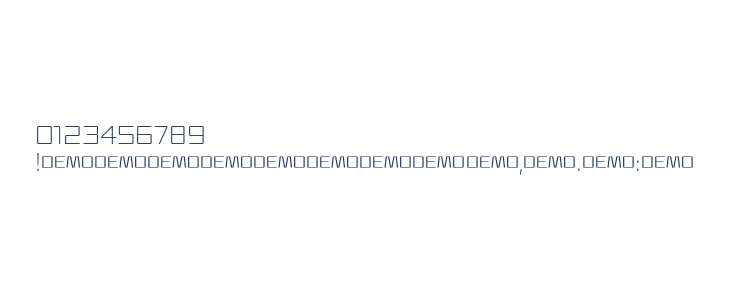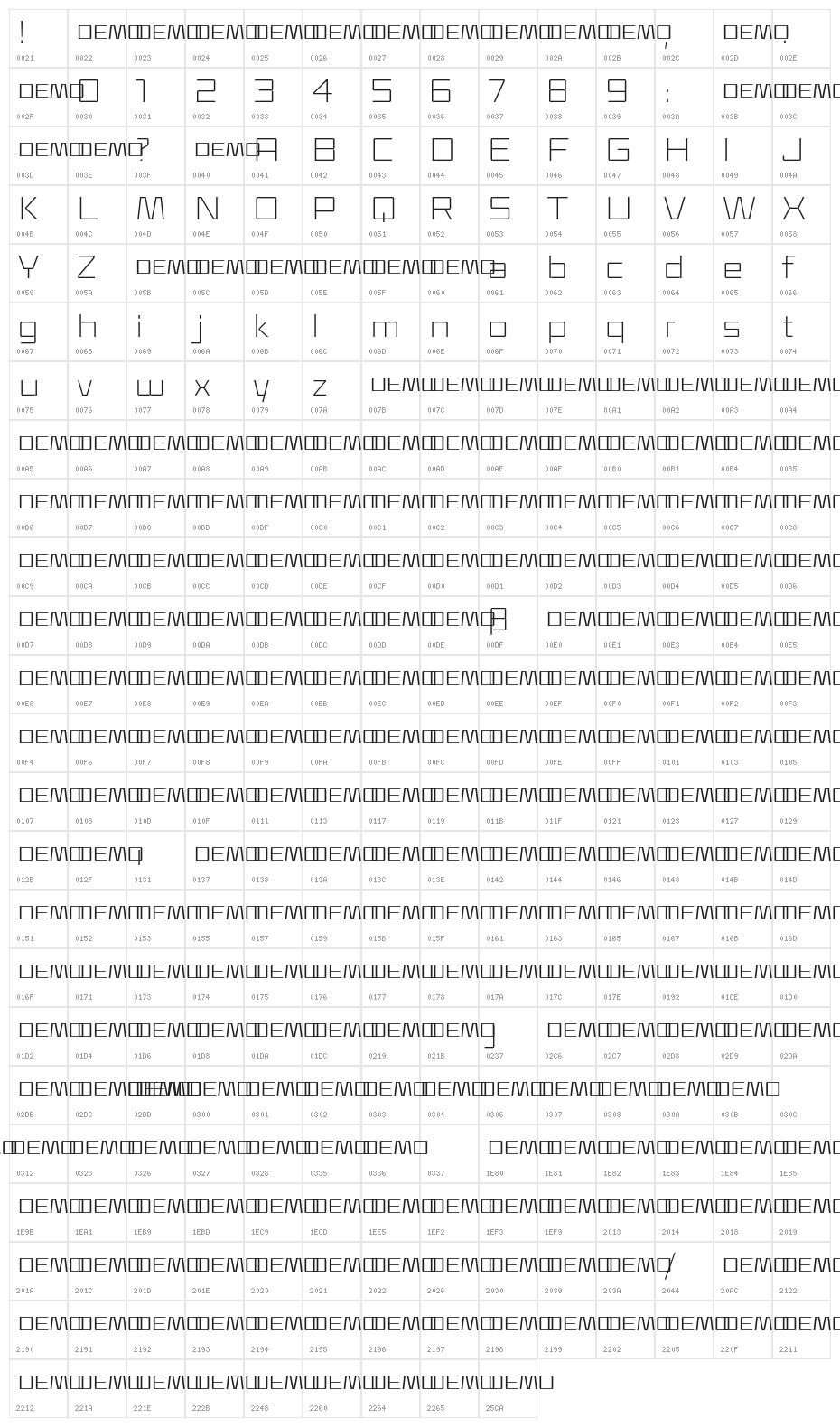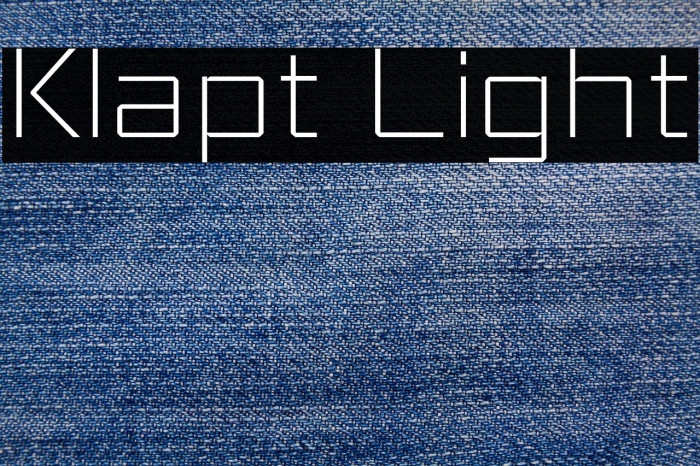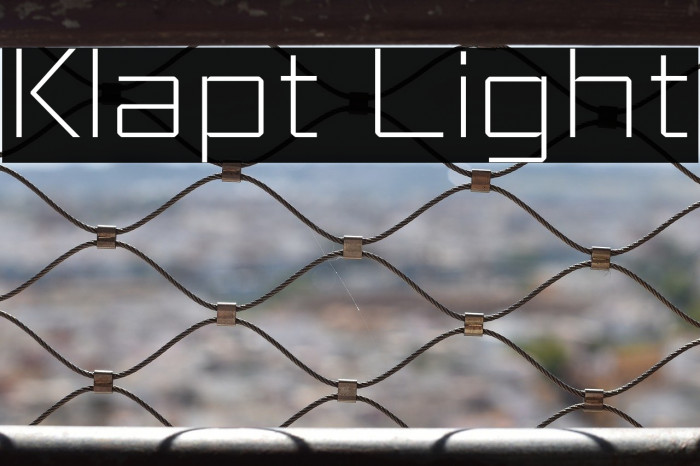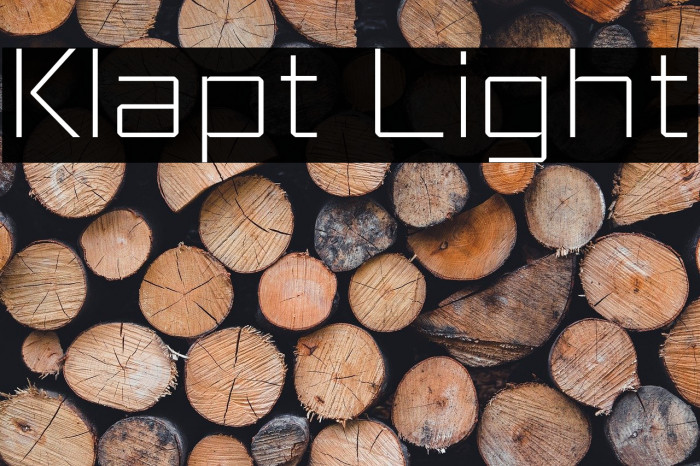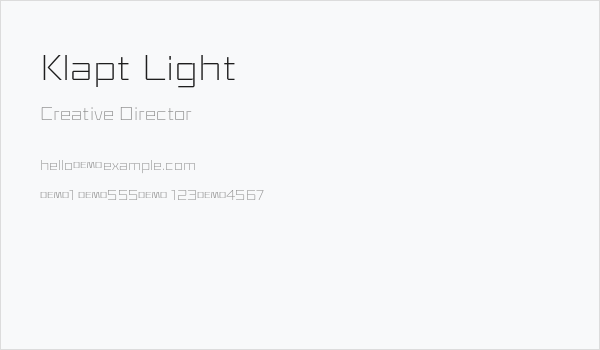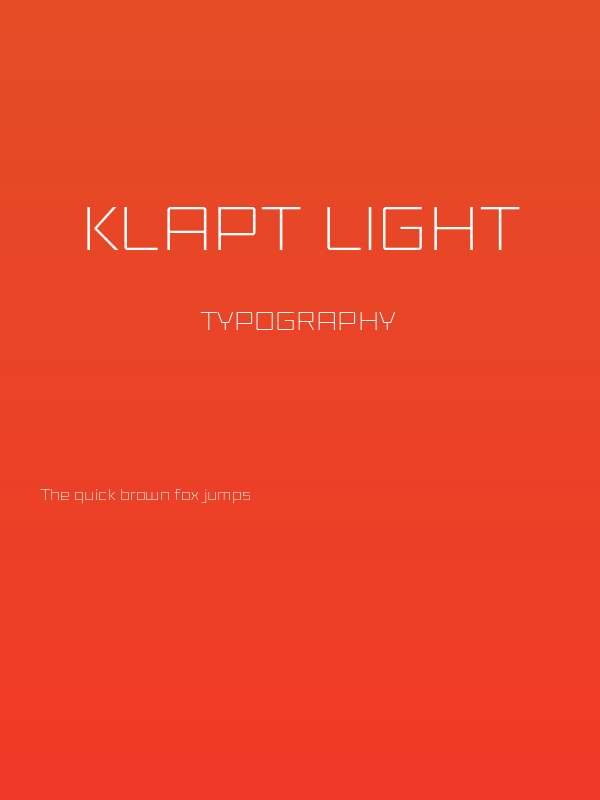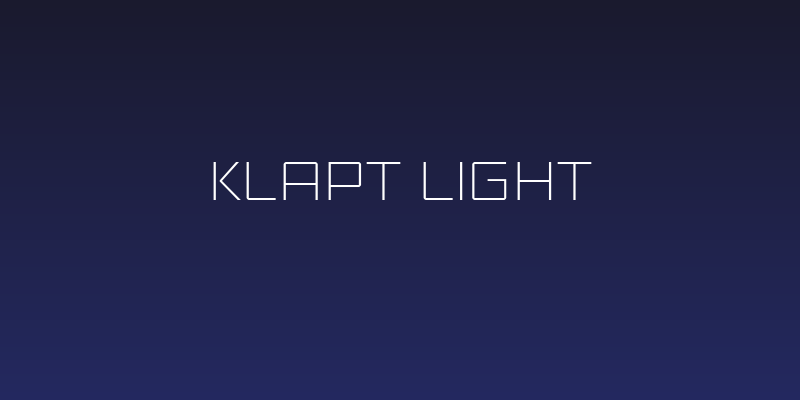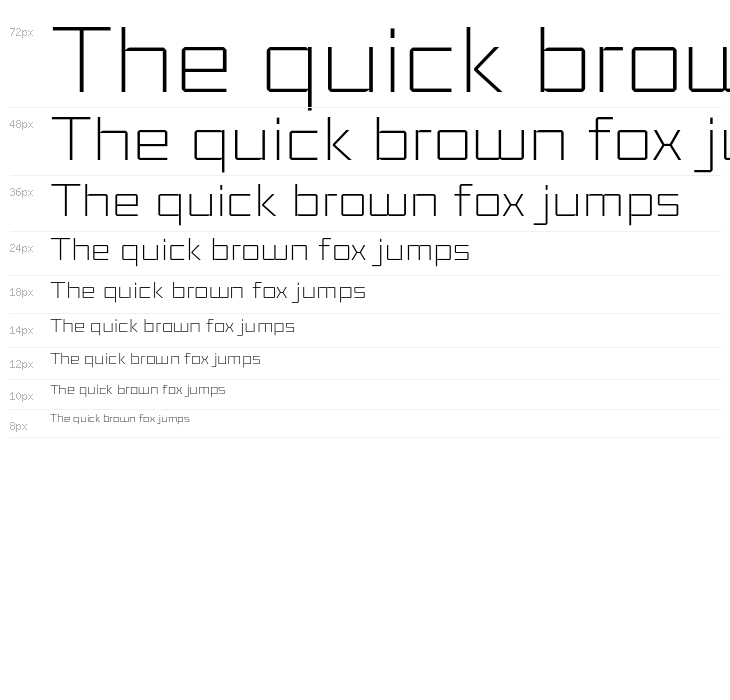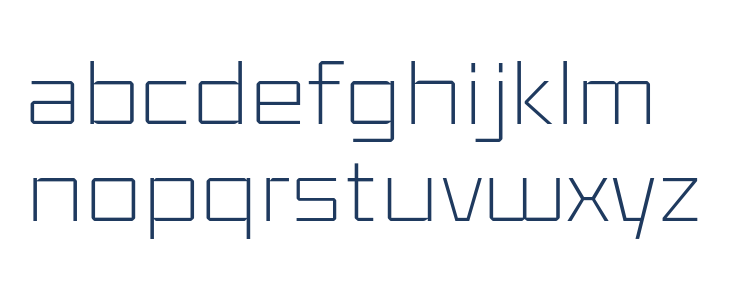
Klapt Light Font
Klapt Light Description
This font features a geometric and modern design with clean, straight lines and minimal curves. The characters are constructed with a consistent stroke width, giving it a uniform appearance. The uppercase and lowercase letters maintain a similar height, creating a harmonious look. The numbers are designed with the same geometric precision, making them easily readable. Special characters are included, matching the overall style. This font's simplicity and clarity make it suitable for various design applications.
| Use Case | Headlines, Logos, Digital interfaces |
| Proposed Projects | Ideal for tech branding, minimalist posters, modern websites, and digital interfaces. |